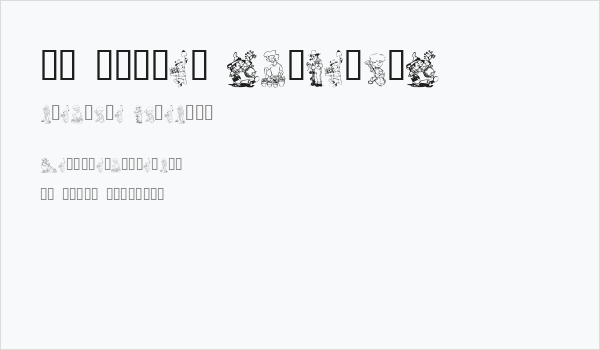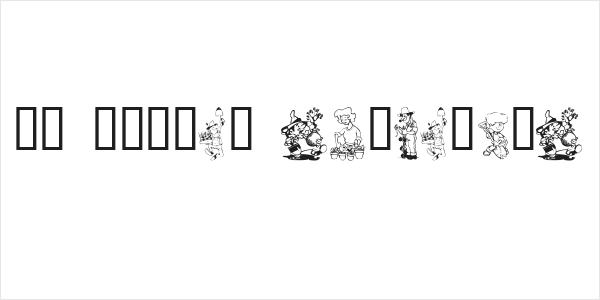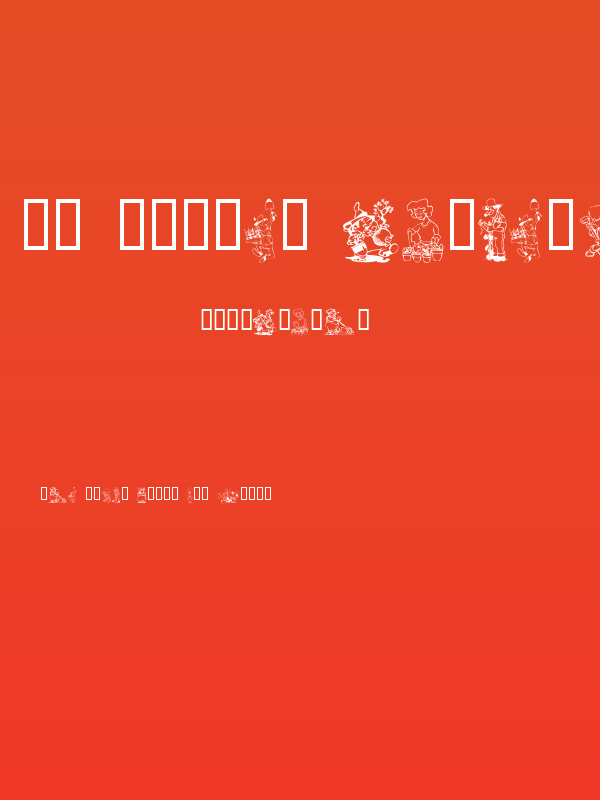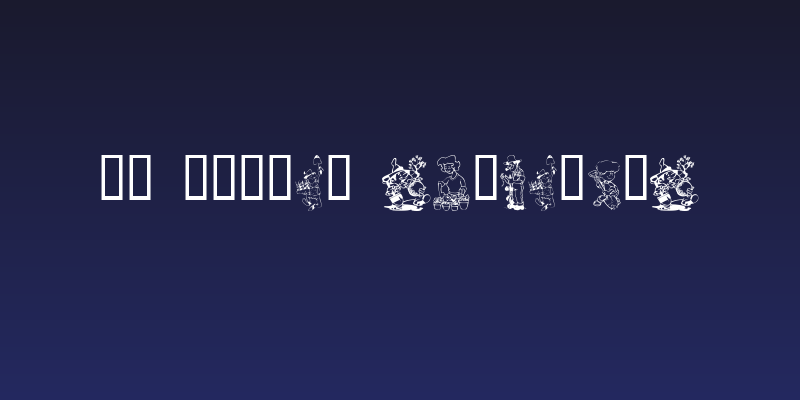
KR Summer Gardening Font
KR Summer Gardening Description
This is a decorative font featuring whimsical gardening-themed illustrations. Each character is represented by a unique cartoon-style drawing, depicting various gardening activities and characters. The font is playful and artistic, capturing the essence of summer gardening with a light-hearted and fun approach. The characters are detailed and expressive, making it suitable for creative and informal projects. The illustrations are black and white, allowing for easy integration into various designs.
| Proposed Projects | Ideal for children's books, gardening event posters, playful invitations, and creative educational materials. |